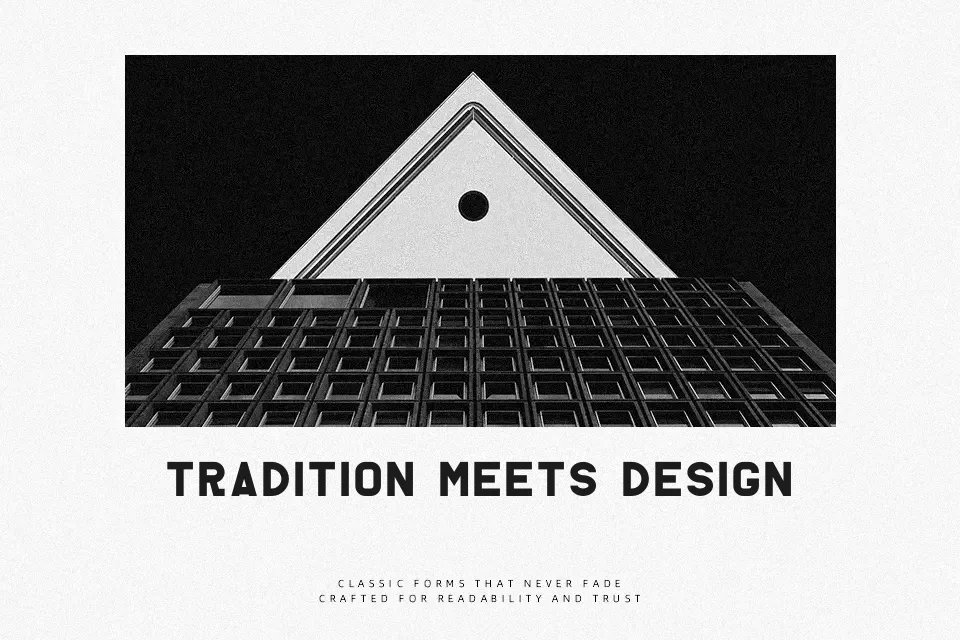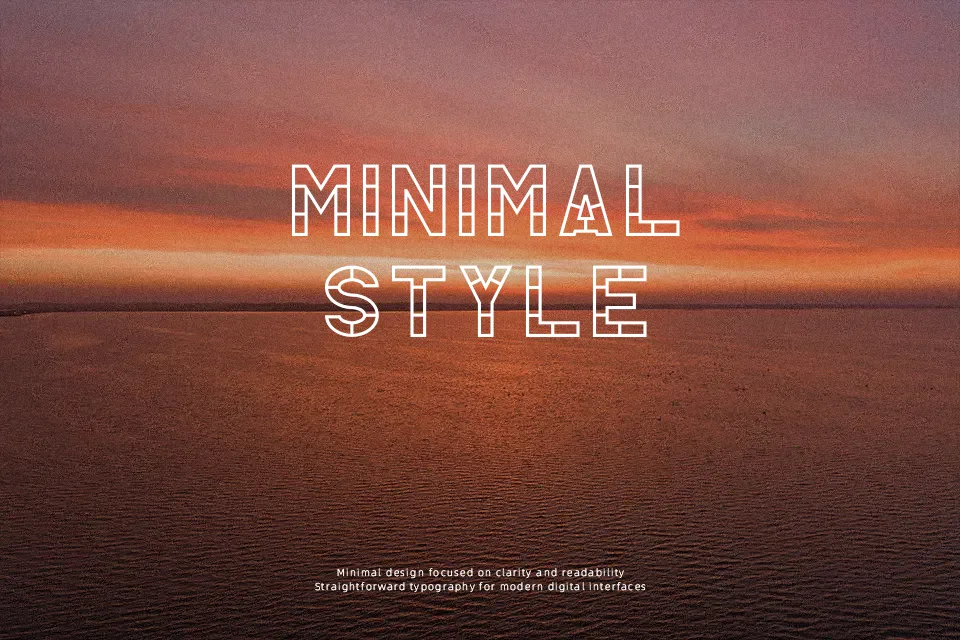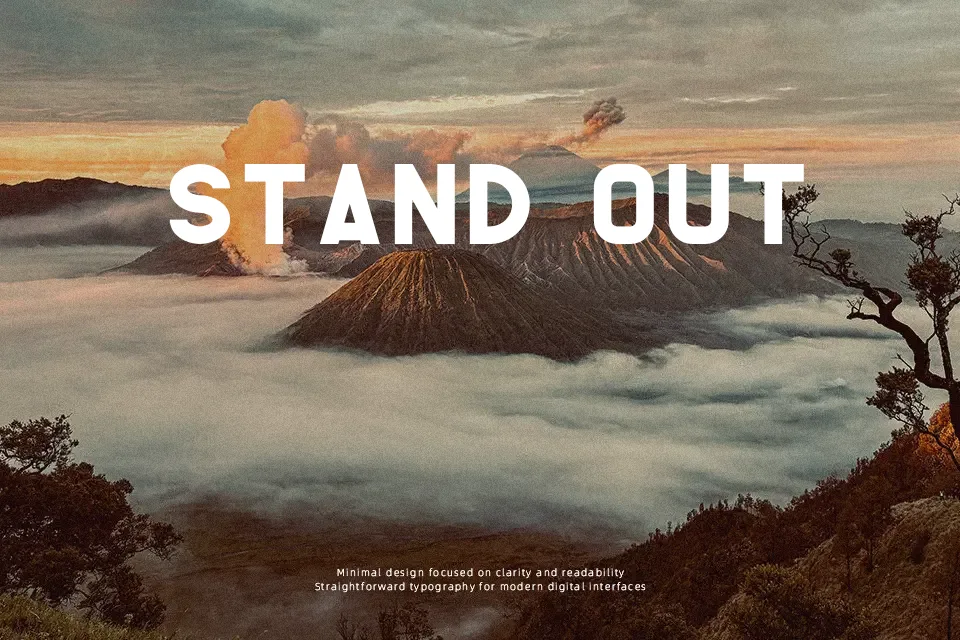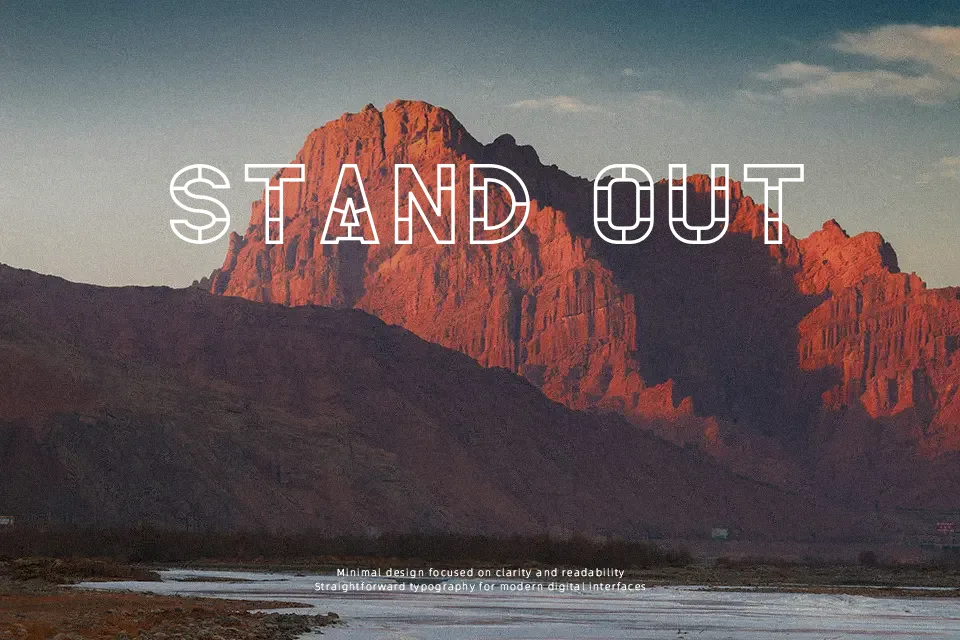
AC Thermes Font
There’s a certain confidence to AC Thermes that makes it immediately readable at large sizes—its bold, even strokes and tight geometric construction give it a retro character without veering into kitsch. The solid and outline variants add flexibility for layered or contrasting type treatments, particularly in poster or merchandise contexts. It works well for music-related branding, retro-themed packaging headers, or social media visuals where a strong typographic personality is the point. That said, AC Thermes is not built for running text—its weight and display nature make it unsuitable for anything smaller than headline use. The outline variant especially loses legibility at small sizes. Users needing versatility across print and screen at multiple scales should consider supplementing with a neutral body companion.
Best For:- Music event poster headlines
– Retro-themed apparel and merchandise branding
– Logo lettering for bars, diners, or vintage-style shops
– Social media header graphics
Not Ideal For:- Body text or extended reading
– Corporate or formal document use
– Small-size print applications
– Digital UI labels or navigation
Perfect for branding, headline, and logo, with a bold and condensed style.